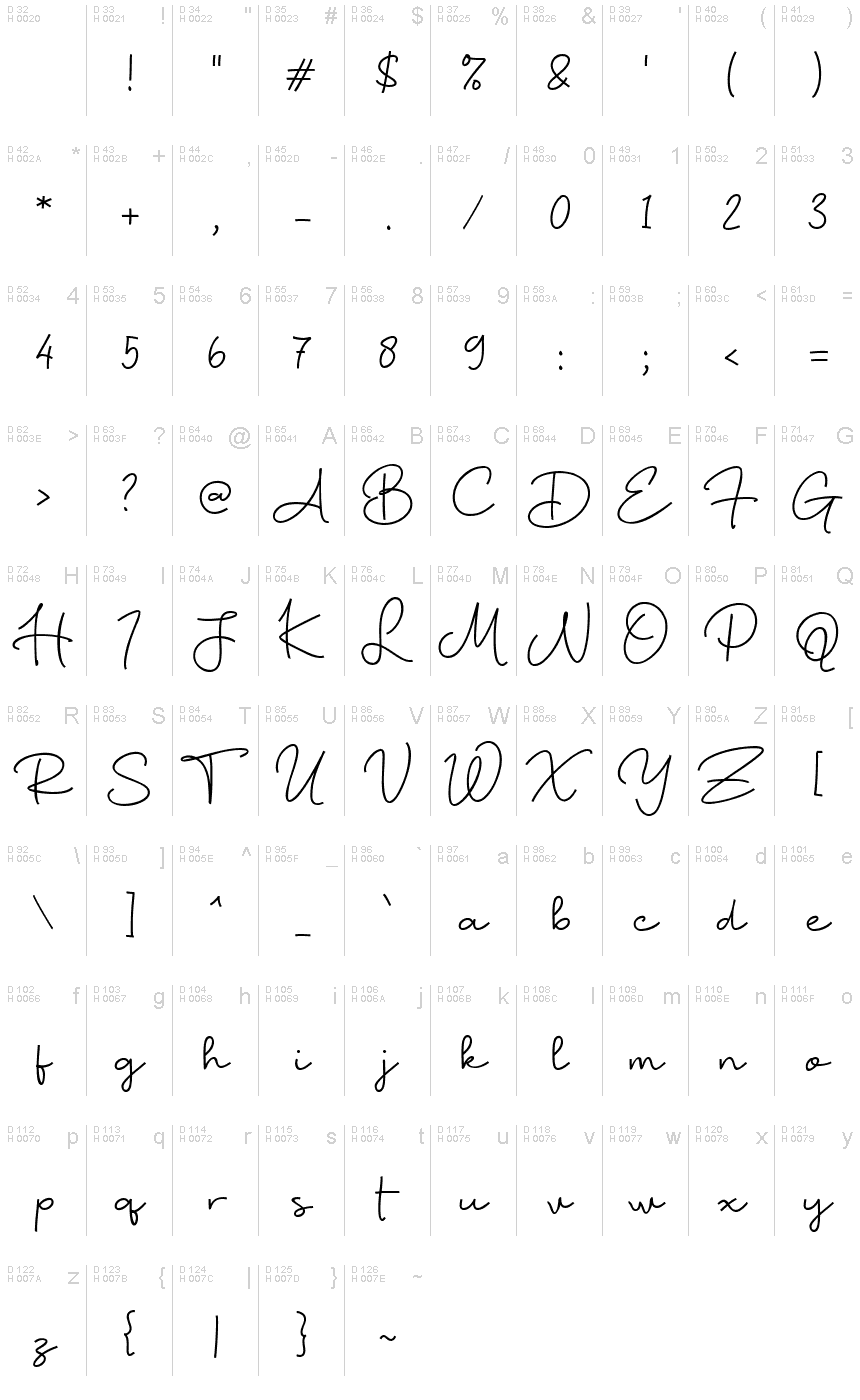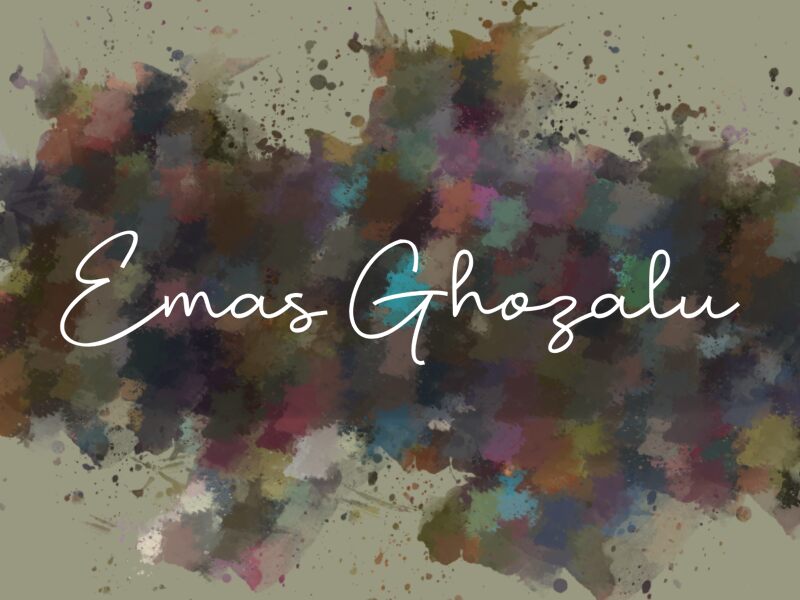
Emas Ghozalu
Looking for a handwritten font that exudes an air of lightness? Look no further than Emas Ghozalu, designed by wep. This delicate typeface brings a touch of whimsy to any project, whether it's a wedding invitation, children's book cover, or logo for a boutique shop. The light weight of the font makes it perfect for adding a subtle touch of personality without overwhelming the design. With Emas Ghozalu, you can add a personal touch to any project while maintaining an air of sophistication and elegance.